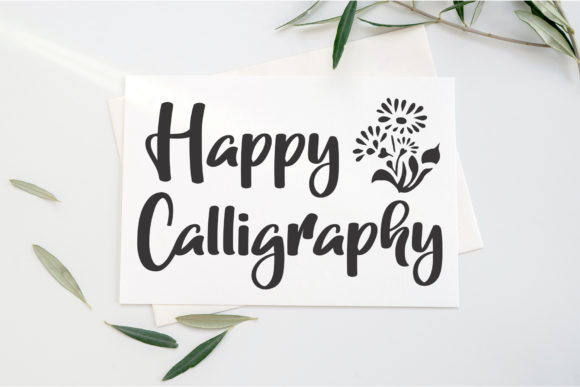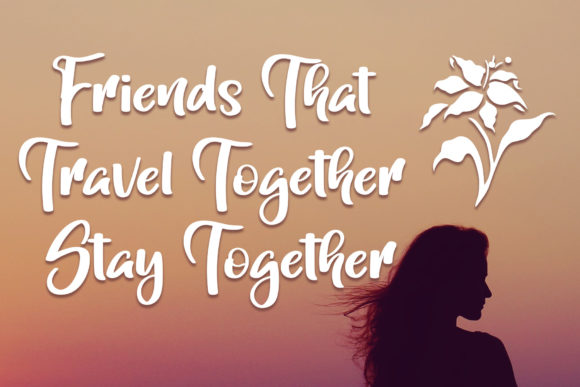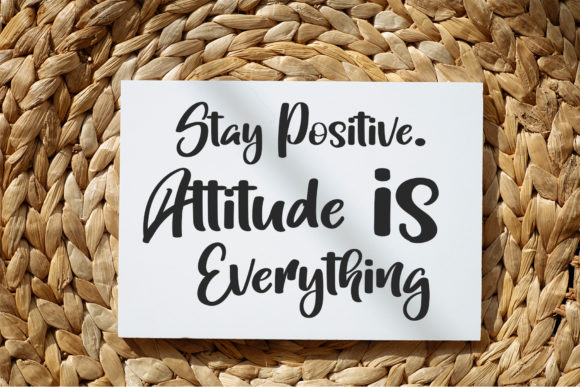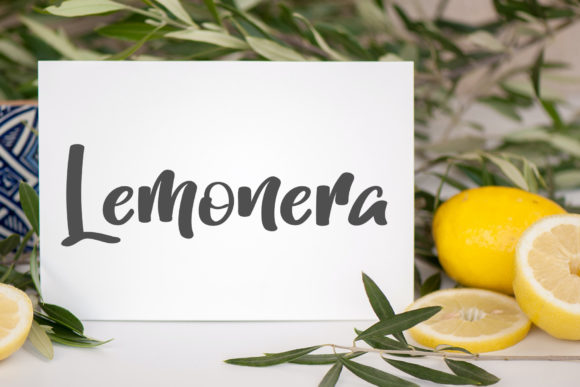
Baby Boho Font: The Ultimate Guide to a Trendy and Chic Handwritten Font
In the world of design, fonts play a crucial role in conveying the tone and aesthetic of a project. For those looking to add a touch of elegance and whimsy to their designs, the Baby Boho font is an excellent choice. This trendy and chic handwritten font has been specifically crafted for designers and crafters who need a beautiful and refreshing look to their designs.
What is Baby Boho Font?
Baby Boho font is a modern, handwritten font that exudes a sense of sophistication and playfulness. Its unique and elegant design makes it perfect for a wide range of projects, from branding and advertising to packaging and digital media. The font’s flowing lines and curves give it a bohemian feel, making it ideal for designs that require a touch of whimsy and charm.
Key Features of Baby Boho Font
- Handwritten style: Baby Boho font is a handwritten font that mimics the look of handwritten text, giving it a personal and authentic feel.
- Trendy and chic: The font’s modern design makes it perfect for designers and crafters who want to add a touch of elegance and sophistication to their projects.
- Versatile: Baby Boho font can be used for a wide range of projects, from digital media to print materials.
- Easy to read: The font’s clear and legible design makes it easy to read, even at small sizes.
Uses of Baby Boho Font
Baby Boho font is a versatile font that can be used for a variety of projects, including:
- Branding and advertising: The font’s unique and elegant design makes it perfect for logos, advertisements, and marketing materials.
- Packaging design: Baby Boho font can be used to add a touch of whimsy and charm to product packaging.
- Digital media: The font can be used for digital media, such as social media graphics, blog posts, and website headers.
- Crafting and DIY projects: Baby Boho font can be used for crafting and DIY projects, such as making signs, cards, and other handmade items.
Benefits of Using Baby Boho Font
Using Baby Boho font can bring several benefits to designers and crafters, including:
- Unique and eye-catching designs: The font’s trendy and chic design makes it perfect for creating unique and eye-catching designs.
- Time-saving: Baby Boho font can save designers and crafters time, as it can be used for a wide range of projects.
Tips for Using Baby Boho Font
Here are some tips for using Baby Boho font:
- Use it sparingly: Use Baby Boho font sparingly to add a touch of elegance and whimsy to your designs.
- Pair it with other fonts: Pair Baby Boho font with other fonts to create a unique and visually appealing design.
- Experiment with different sizes and colors: Experiment with different sizes and colors to find the perfect combination for your design.
Baby Boho font is a trendy and chic handwritten font that is perfect for designers and crafters who need a beautiful and refreshing look to their designs. Its unique and elegant design makes it versatile and easy to use, and it can be used for a wide range of projects. By following the tips outlined above, designers and crafters can make the most of Baby Boho font and create stunning designs that are sure to impress.
Whether you’re a professional designer or a DIY crafter, Baby Boho font is an excellent choice for adding a touch of elegance and whimsy to your projects. So why not give it a try and see the difference it can make?